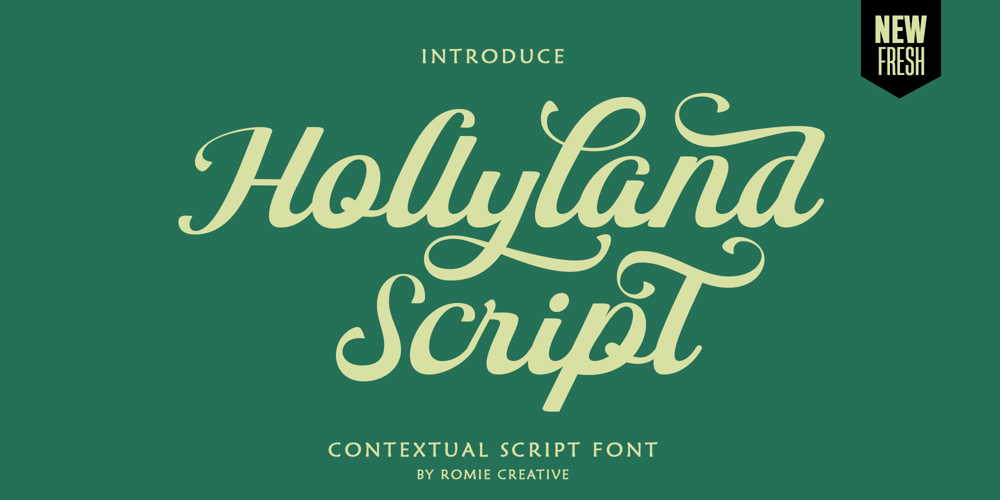
Hollyland Script Font Family was designed by Romi Rahmadi and published by Romie Creative. Hollyland Script contains 1 styles and family package options. Hollyland Script is a modern brush script font. The letters have soft, slightly bouncy terminals. Hollyland Script has two sets of uppercase letters, one simpler and the other more striking.It also has three different types of starting and ending swashes for lowercase letters and several options for ascenders and descenders.So if you’re looking for a smooth, friendly and modern script with lots of options and versatility, check out Hollyland Script.